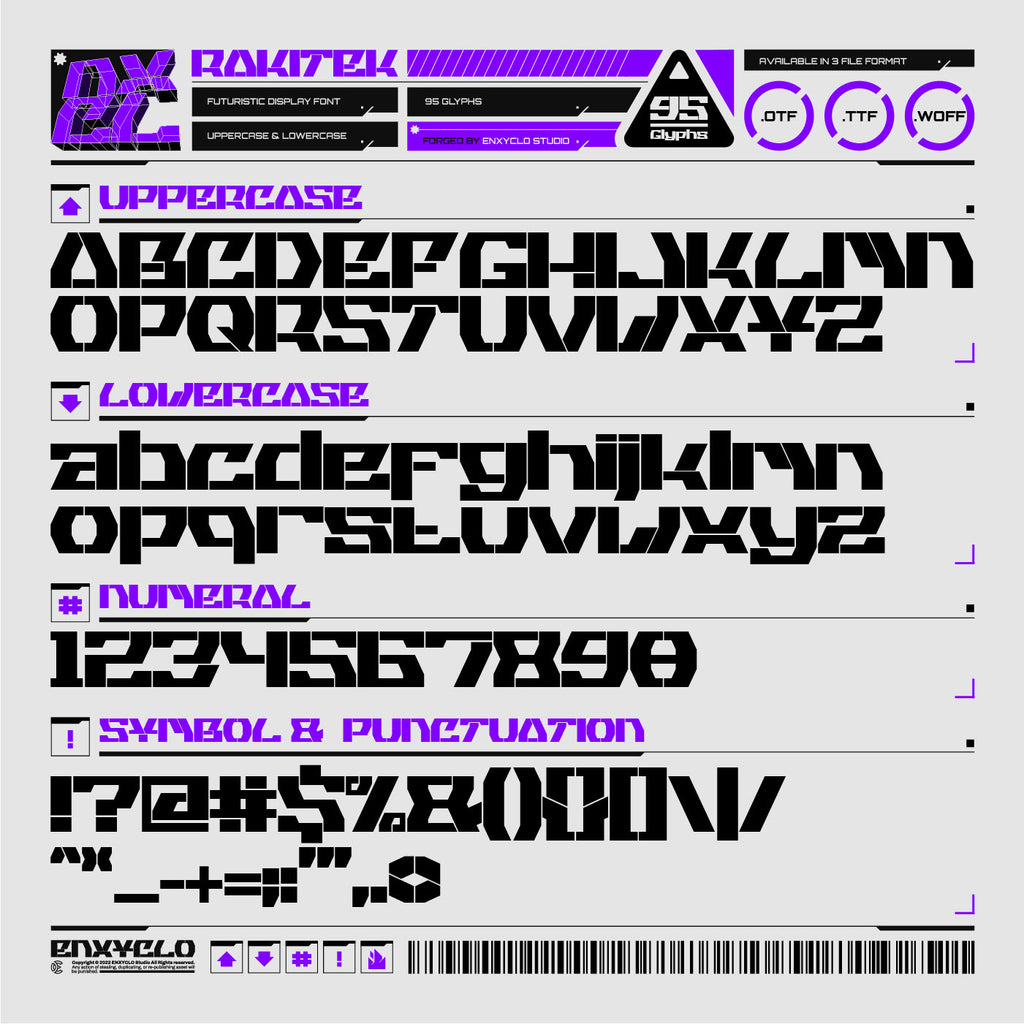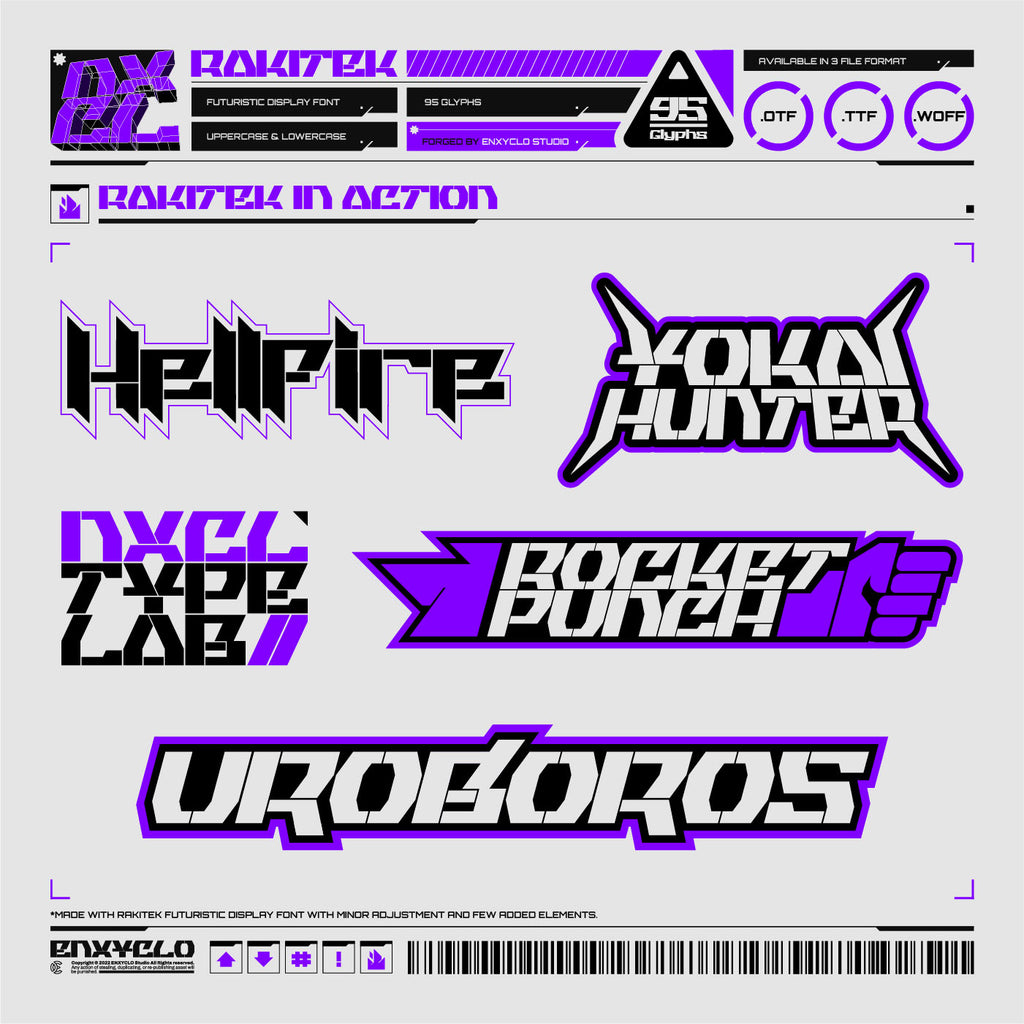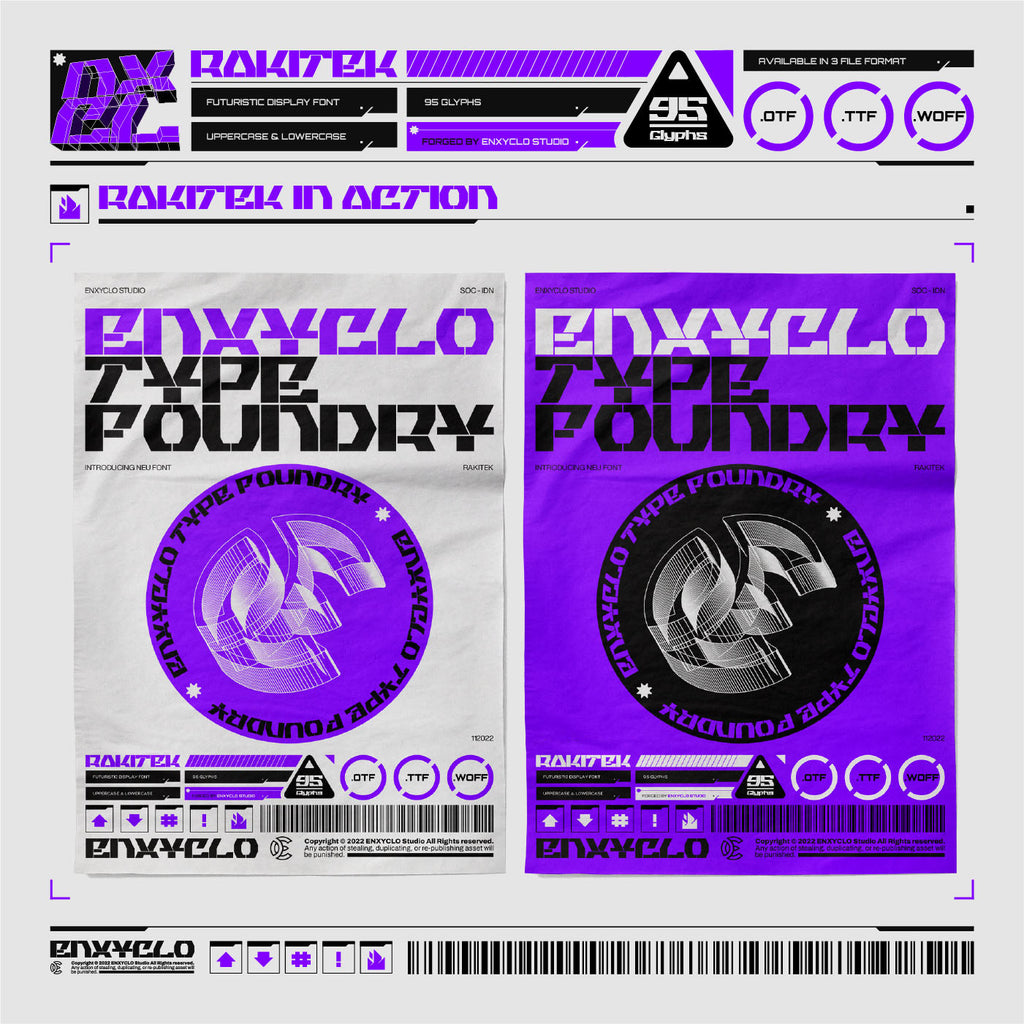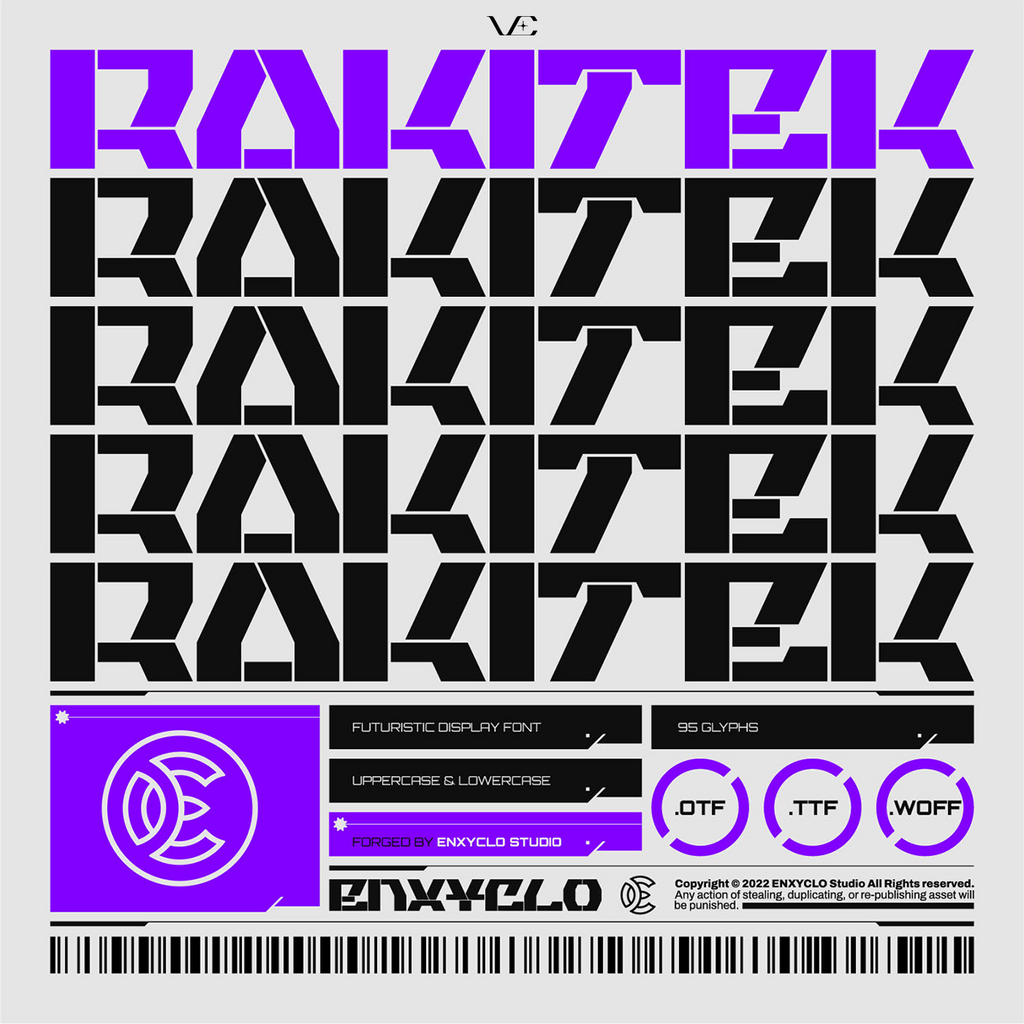
RAKITEK • Cyberpunk Typeface
RAKITEK is a neo futuristic industrial cyberpunk display font. Masterfully designed to become a true favorite, this font has the potential to bring each of your creative ideas to the highest level! It was purposely crafted to be used in large point sizes, although it doesn’t lose its magic in small point sizes. It is perfect for creative branding, event, headline, billboard, magazines, website, titles, poster, branding, t-shirt design, and logos. No matter the topic, this font will be an incredible asset to your fonts’ library, as it has the potential to elevate any creation. With this beautiful font, absolutely you can make your project stand out from the rest. See the previews above to get some inspiration on how to use them.